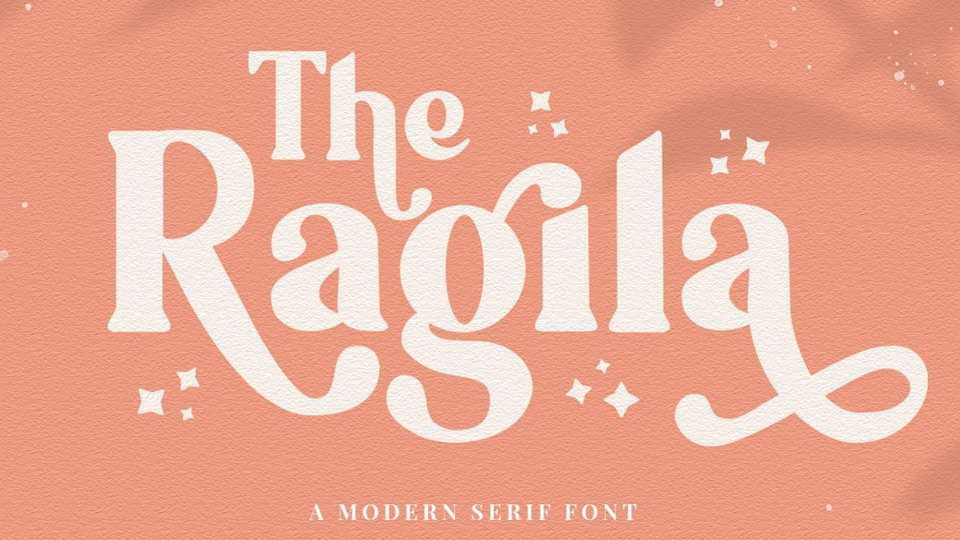
Download Ragila font, a soft serif typeface inspired by some of the edgiest looks from the modern luxury trend, every character uppercase and lowercase have alternates.
Designer: Vultype Co